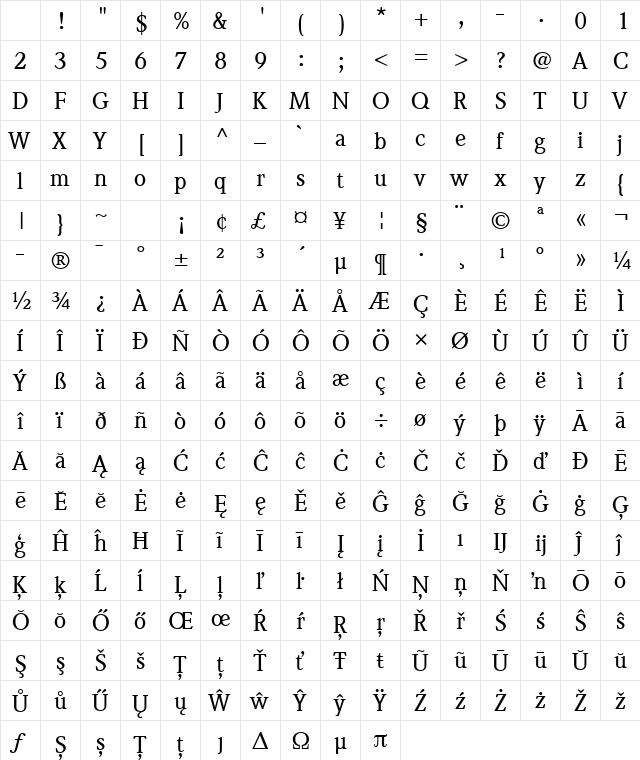
Complete ITC Weidemann Com Medium glyph index. Displaying only characters natively supported by ITC Weidemann Com Medium font.
ITC Weidemann Com is a composed and adaptable typeface that performs quietly and consistently across a wide range of design contexts.